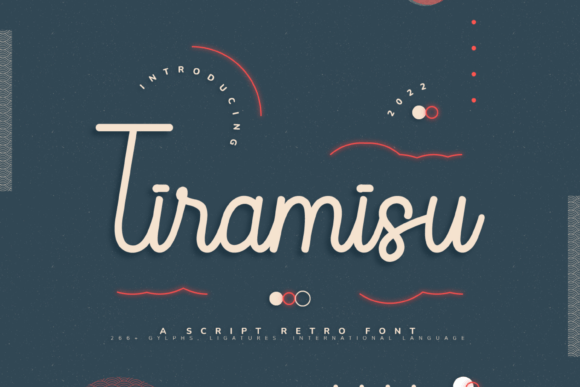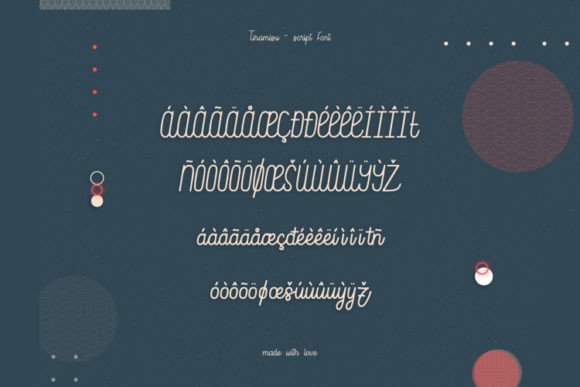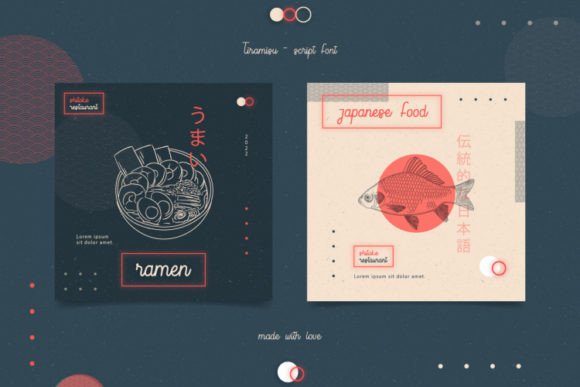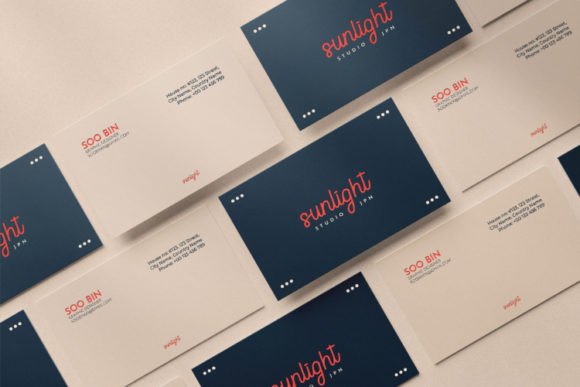
About Tiramisu Font
“Tiramisu” is a retro and wavy handwritten script font designed to bring a unique and distinctive flair to your creative projects. With its beautiful and well-balanced characters, this font is crafted to match a wide variety of designs, making it a versatile and visually appealing choice.
The retro and wavy characteristics of “Tiramisu” set it apart, creating a distinctive look that adds personality to your typography. Whether you’re working on branding, posters, invitations, or any other design project, this font has the potential to make your creative ideas come alive.
The well-balanced characters contribute to the overall harmony and readability of the font. This ensures that “Tiramisu” remains effective in delivering your message while also providing a touch of nostalgia and style.
Incorporating “Tiramisu” into your designs allows you to explore a retro aesthetic with a playful twist. Its wavy script style adds a dynamic and lively element, making it suitable for projects that seek to stand out with a touch of creativity.
In summary, “Tiramisu” is more than just a font; it’s a design asset that brings retro and wavy charm to your projects. Embrace its unique characteristics, add it to your most creative ideas, and witness how it infuses them with life and character.